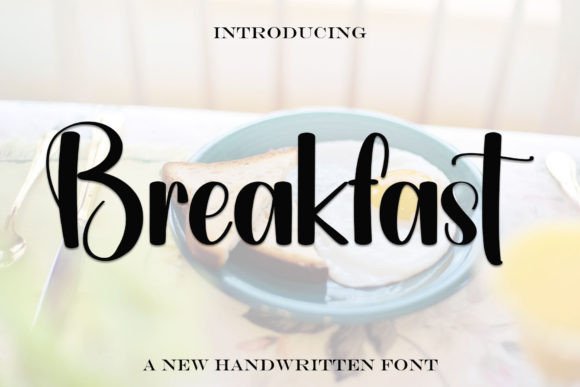
The Breakfast Font: A Timeless Classic for Modern Designs
I’ll never forget the design project that led me to discover the Breakfast font. I was working on a branding project for a trendy café, and I was struggling to find the perfect font to capture their modern yet elegant vibe. That’s when I stumbled upon Breakfast, a stylish handwritten font that instantly resonated with me. Its contemporary atmosphere and impeccable form made it an instant favorite, and I knew I had to share it with the design community.
So, what makes Breakfast font so special? Here are a few things I love:
- ✨ Beautifully crafted glyphs and ligatures: The font’s PUA encoding makes it easy to access all the amazing glyphs and ligatures, adding a touch of elegance to any design.
- ✅ Balanced and varied: The font’s classic calligraphy inspiration ensures that it’s balanced and varied, making it perfect for a wide range of design projects.
- 💫 Contemporary atmosphere: Despite being inspired by a timeless classic, Breakfast font has a distinctly modern feel that will elevate any design.
Of course, no font is perfect, and there are a few quirks to watch out for:
- ⚠️ Limited multilingual support: While Breakfast font is beautiful, it may not be the best choice for projects that require extensive multilingual support.
- 🤔 Some users may find it too ornate: Depending on the design project, some users may find Breakfast font too ornate or elaborate. It’s essential to consider the project’s tone and style before choosing this font.
The Designer Inspiration Behind Breakfast Font
While the true story behind Breakfast font’s creation may be a mystery, it’s easy to imagine a designer inspired by the timeless classics of calligraphy. Perhaps they spent hours pouring over vintage typography books, searching for the perfect blend of elegance and modernity. Whatever the inspiration, the result is a font that’s both beautiful and functional.
| What is the Breakfast font’s encoding? | The Breakfast font is PUA encoded, making it easy to access all the amazing glyphs and ligatures. |
| Is Breakfast font suitable for body text? | While Breakfast font is beautiful, it’s best suited for headlines, titles, and short paragraphs. For body text, a more straightforward font may be more readable. |
| Is Breakfast font available in different weights or styles? | While Breakfast font may not have multiple weights or styles, its versatility and range of glyphs make it an excellent choice for a wide range of design projects. |